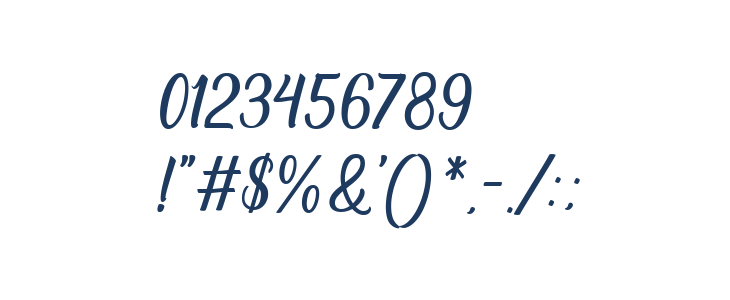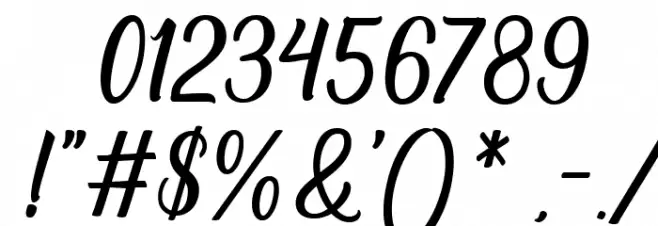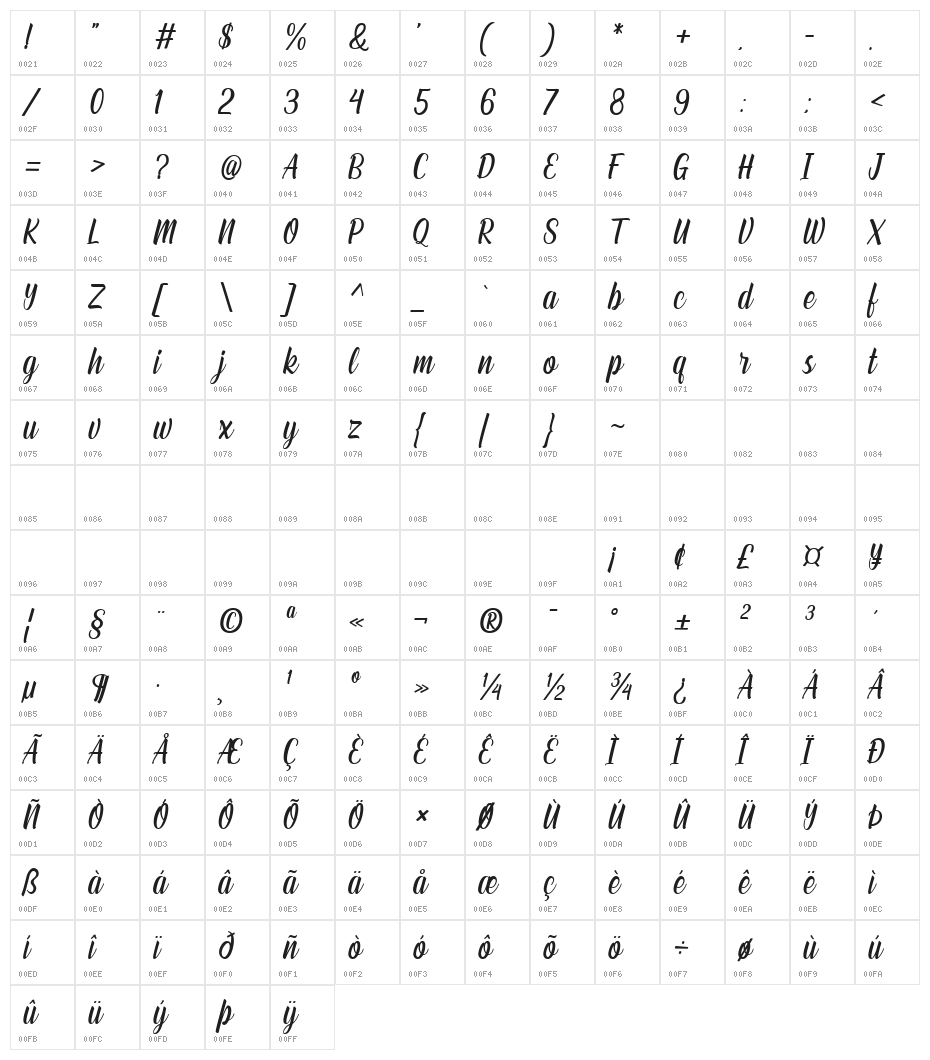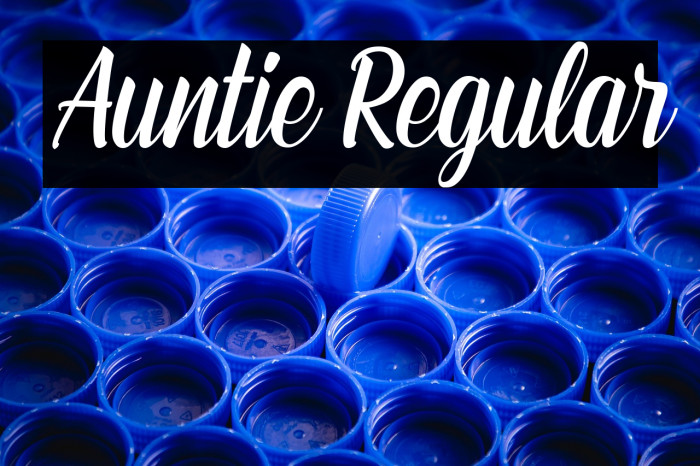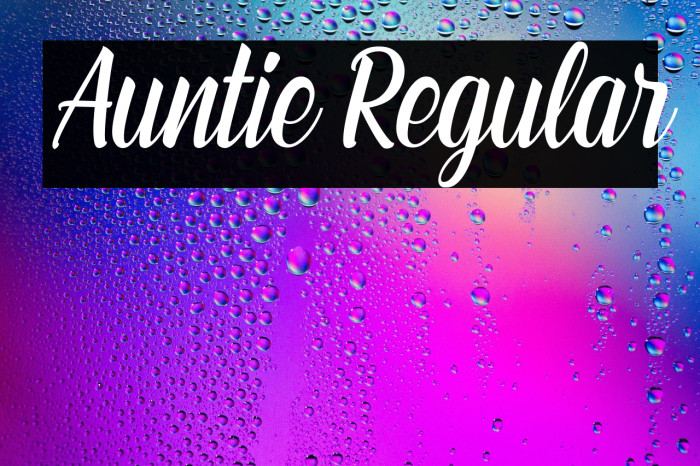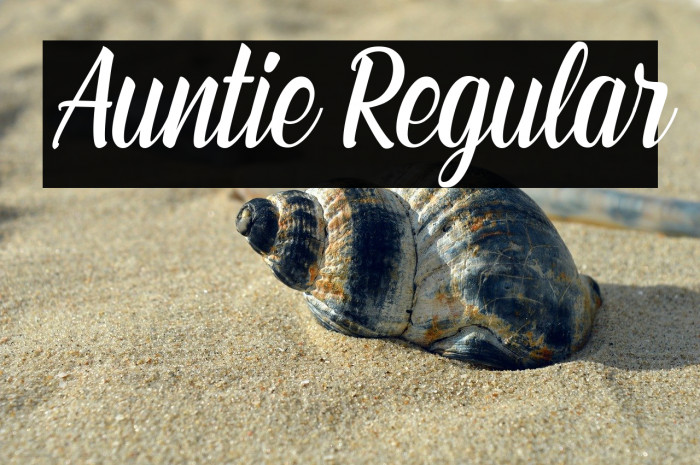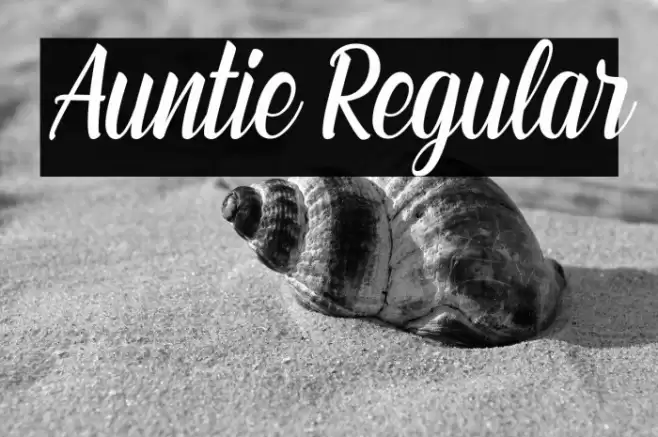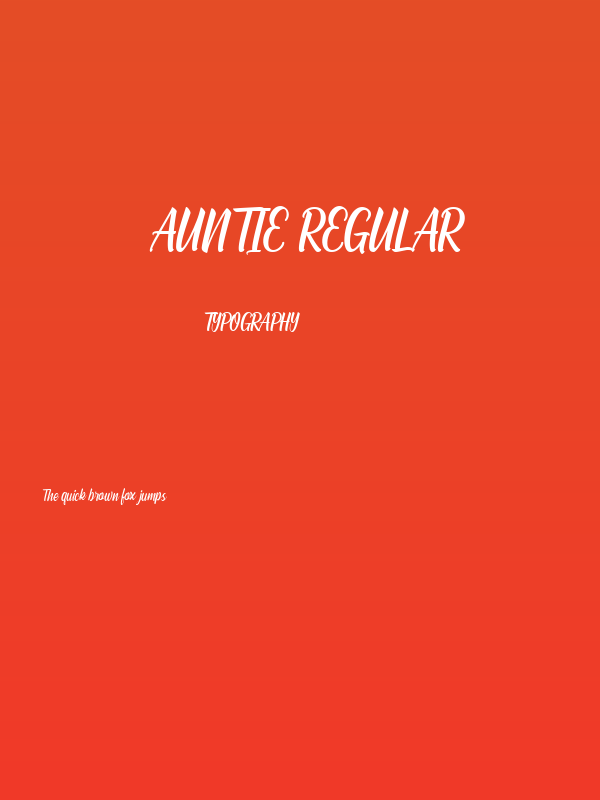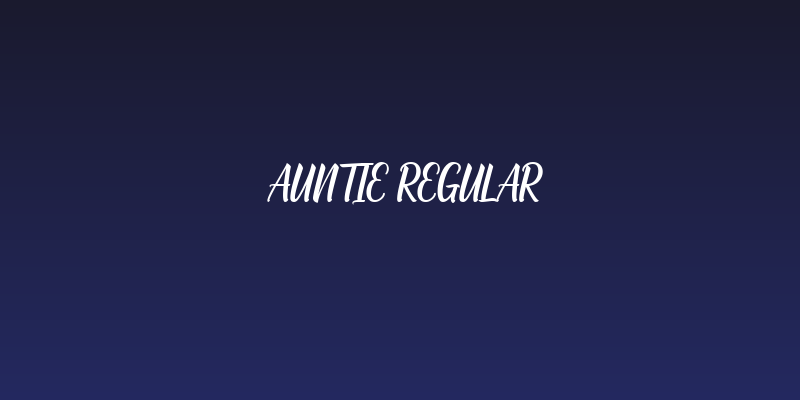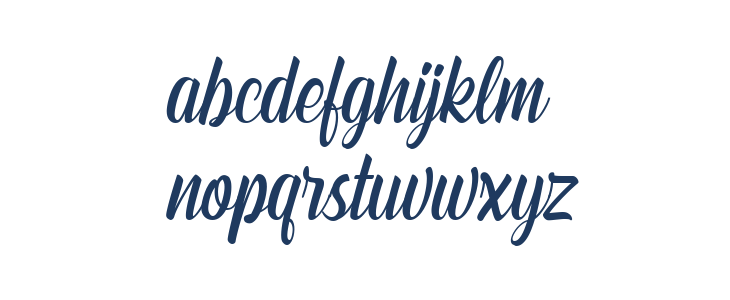
Auntie Regular Font
Auntie Regular Description
This font features a dynamic and flowing script style, characterized by its elegant and smooth curves. The letters are connected in a fluid manner, giving it a handwritten appearance. The uppercase letters are bold and prominent, while the lowercase letters maintain a consistent flow, enhancing readability. The numerals and special characters are designed to match the overall aesthetic, ensuring a cohesive look across all text elements. This font exudes a sense of sophistication and creativity, making it suitable for a variety of design projects.